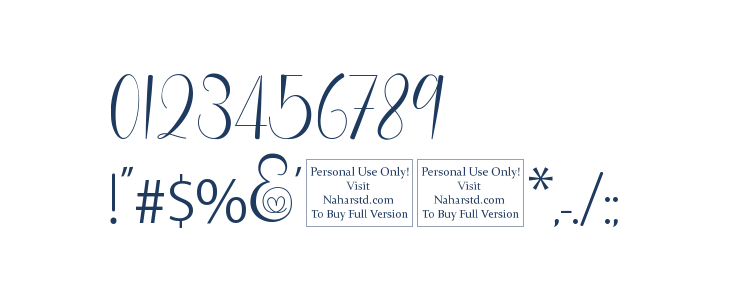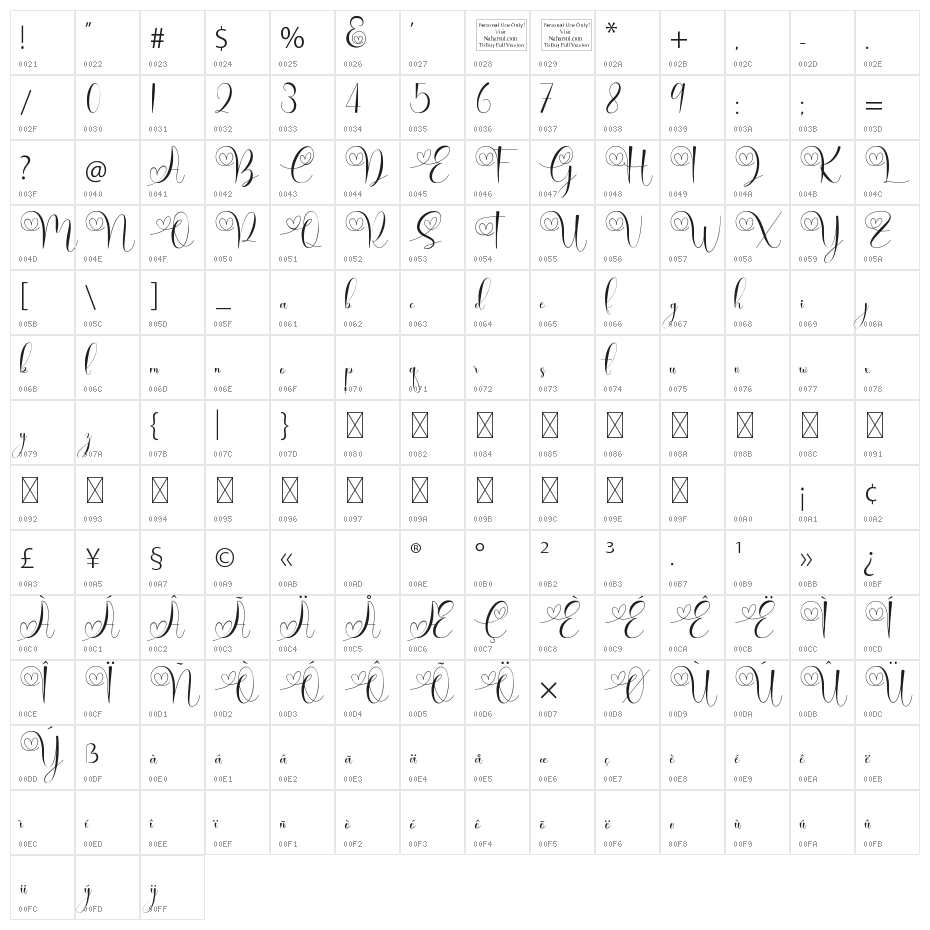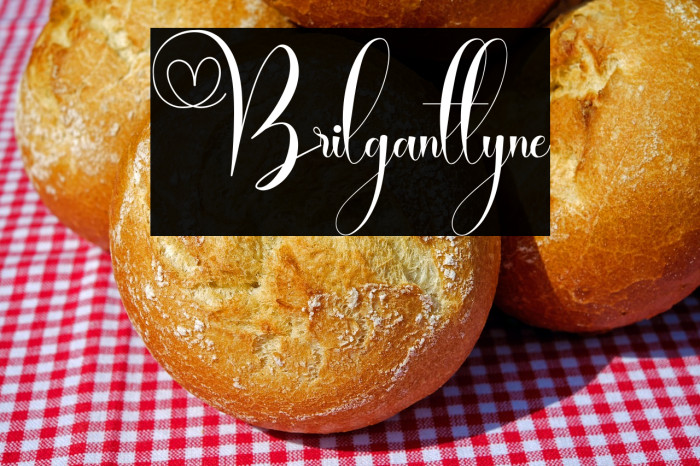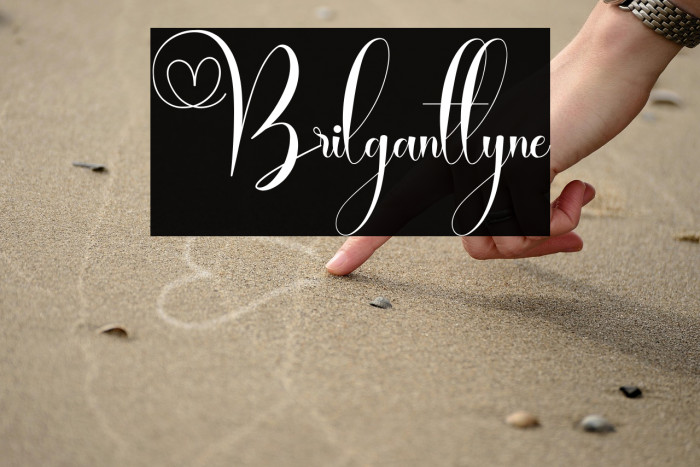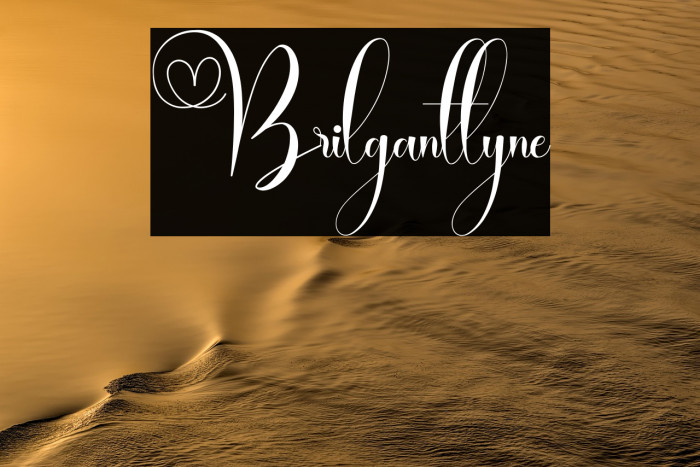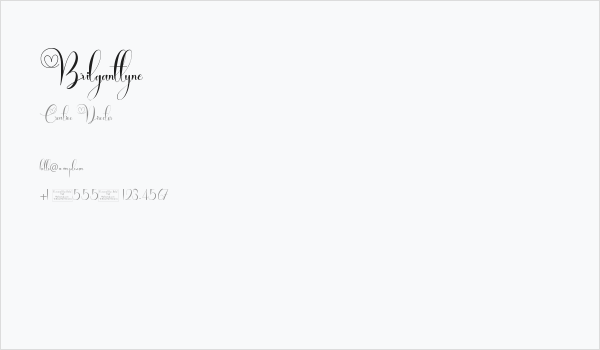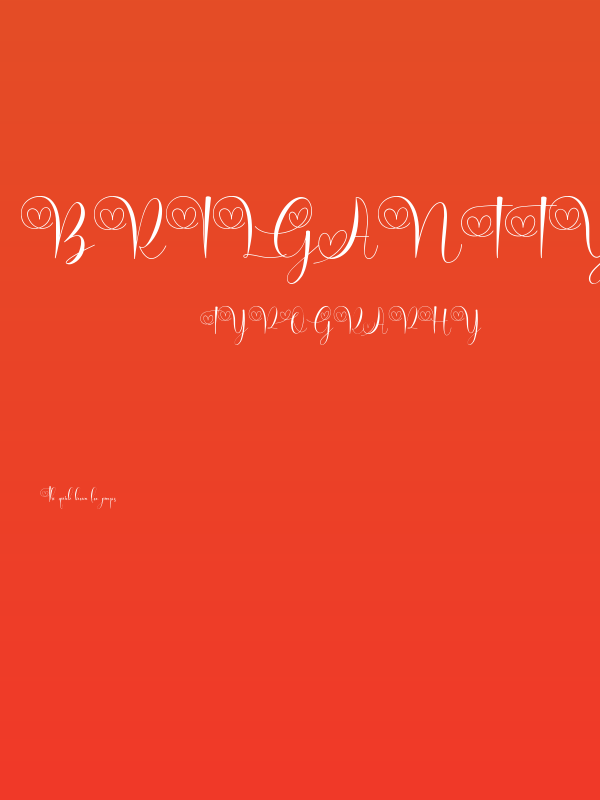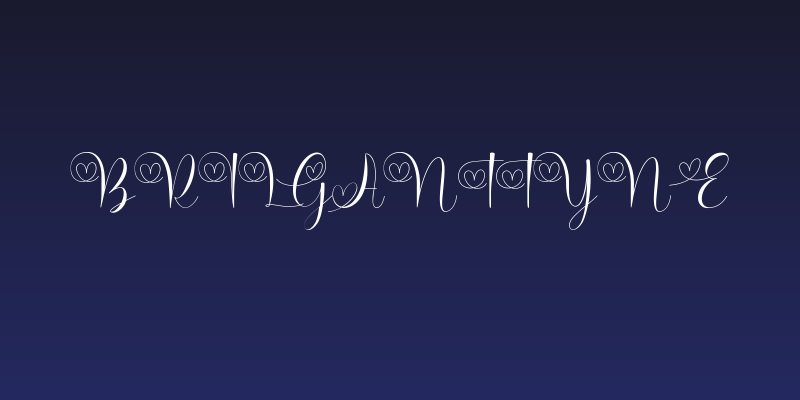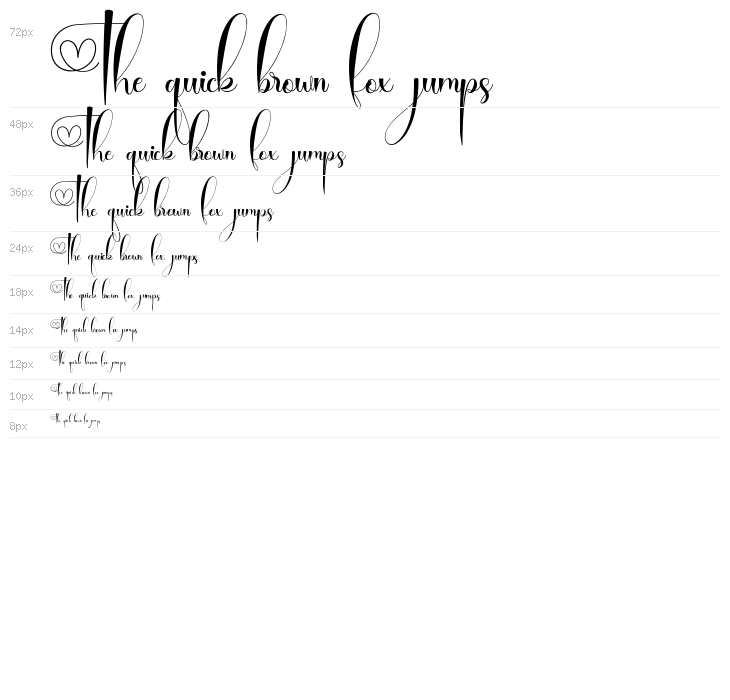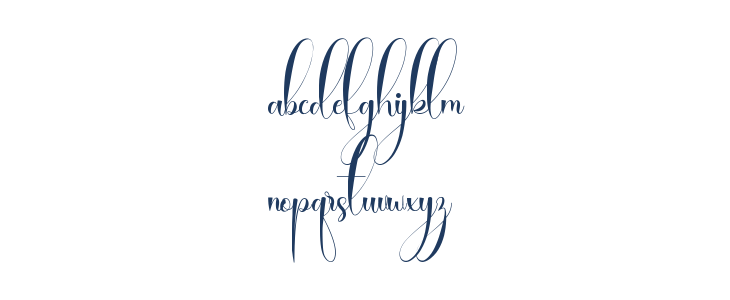
Brilganttyne Font
Brilganttyne Description
This font features a whimsical and elegant script style with decorative heart motifs integrated into the uppercase letters, adding a playful and romantic touch. The lowercase letters are more fluid and connected, showcasing a classic calligraphic influence. The numerals are sleek and modern, providing a nice contrast to the ornate letters. Special characters maintain the decorative theme, making this font suitable for creative and expressive designs. The overall design is both sophisticated and charming, perfect for projects that require a personal and artistic flair.